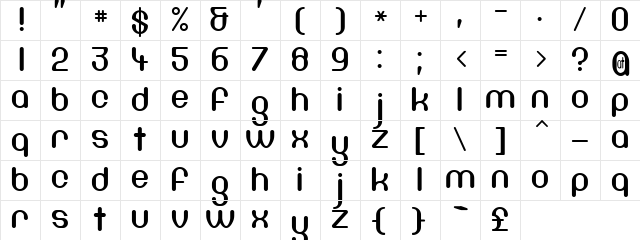
DF667 Chlorine Regular
Design Context for DF667 Chlorine Typeface
DF667 Chlorine is a composed and adaptable typeface that performs quietly and consistently across a wide range of design contexts.
Pro Tip: Use DF667 Chlorine in both headline and body roles to test its range before committing to a single application.